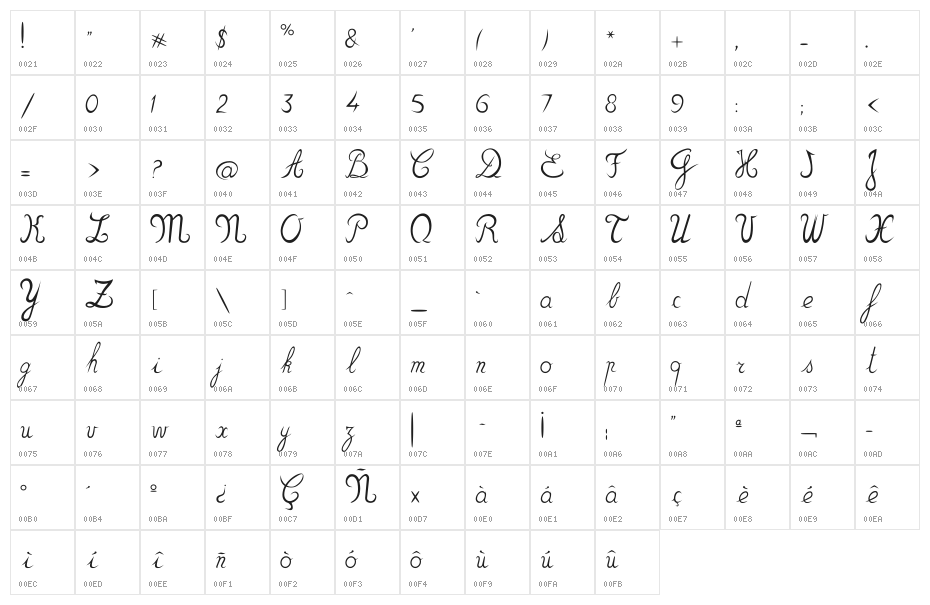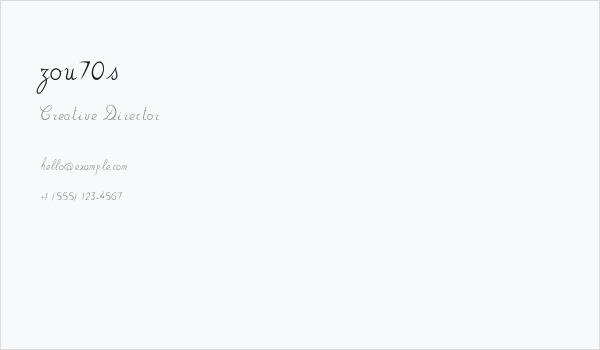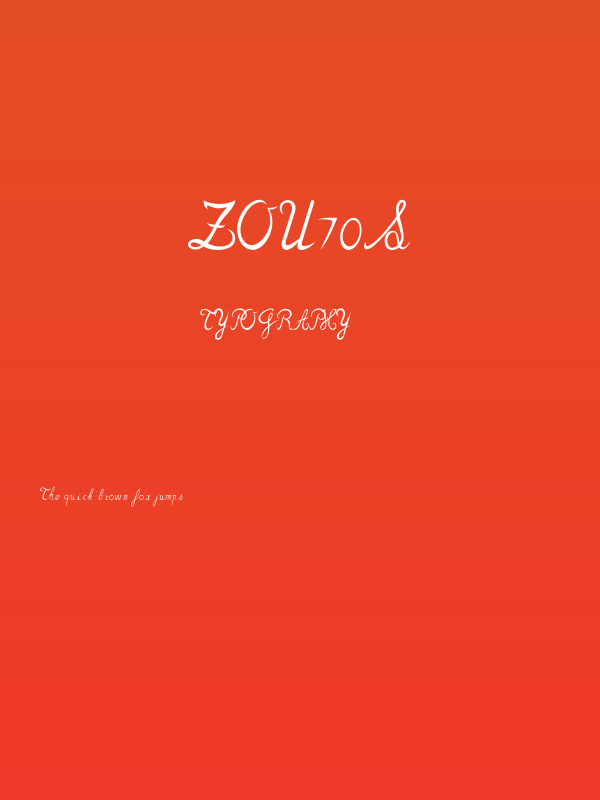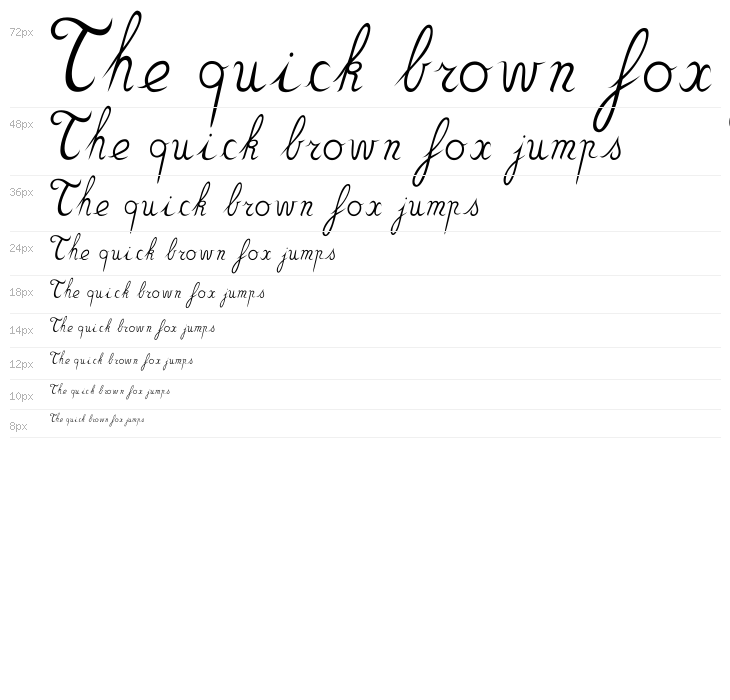
zou70s Font
zou70s Description
This elegant script font features flowing, cursive letters with a classic and sophisticated style. Each character is intricately designed with smooth curves and delicate strokes, creating a sense of fluidity and grace. The uppercase letters are ornate and slightly larger, while the lowercase letters maintain a consistent flow, enhancing readability. Numbers and special characters are crafted with the same attention to detail, making them suitable for various design needs. The overall appearance is both timeless and versatile, ideal for projects that require a touch of elegance and refinement.
| Proposed Projects | Ideal for wedding invitations, elegant branding, greeting cards, and sophisticated logos. |